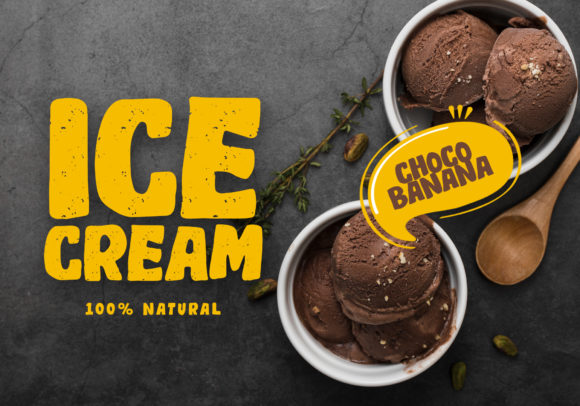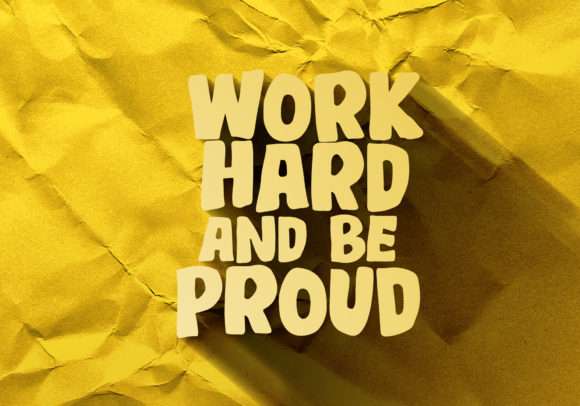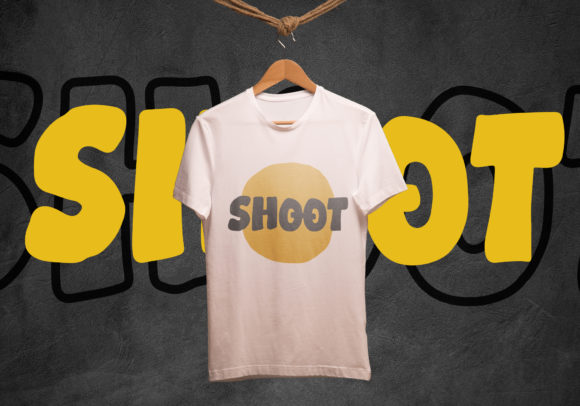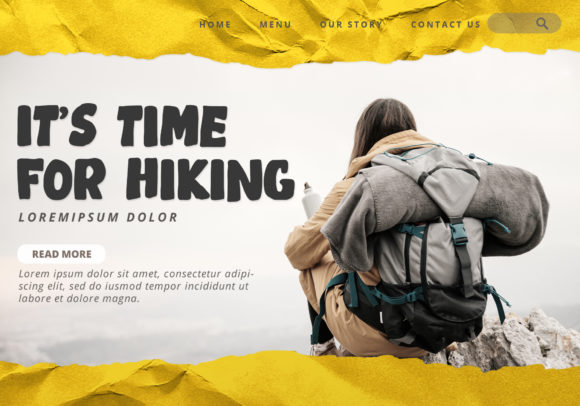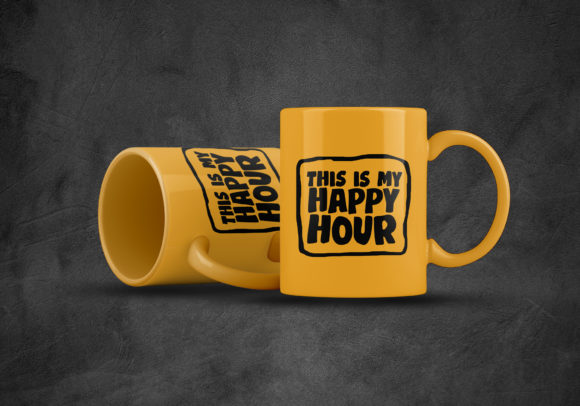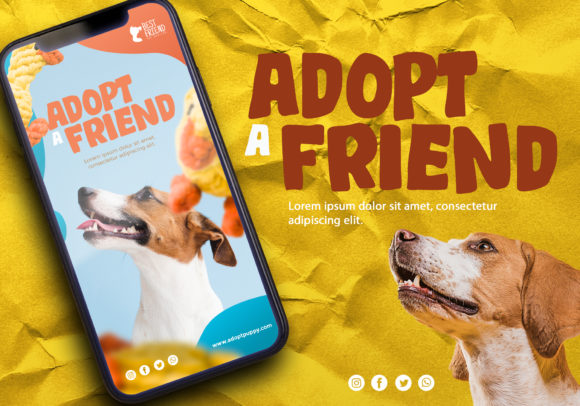
Introduction to Paper Works Font
Paper Works is a bold and authentic display font.
Its friendly feel makes this font incredibly versatile, fitting a wide range of contexts Add it to your creative ideas and notice how it makes them stand out.